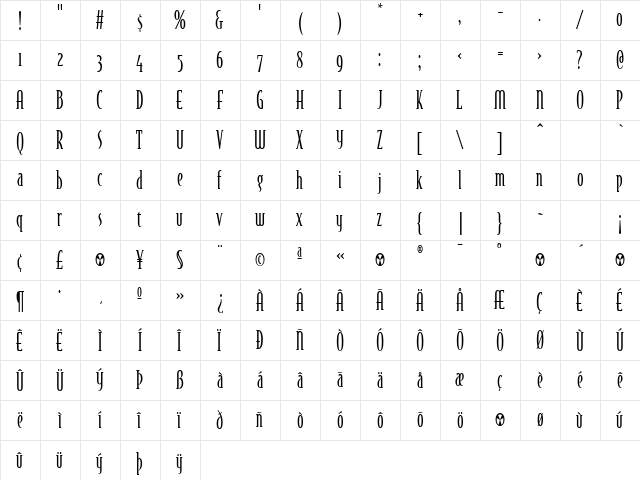
BodegaSerif LightOldstyle
Design Context for BodegaSerif Typeface
BodegaSerif carries the refined structure of traditional serif typography, with bracketed terminals and considered proportions that communicate credibility and craft. Its slender proportions lend an understated elegance to any composition.
Pro Tip: Set BodegaSerif at slightly larger body copy sizes than you would a regular-weight serif to compensate for its delicate stroke contrast.